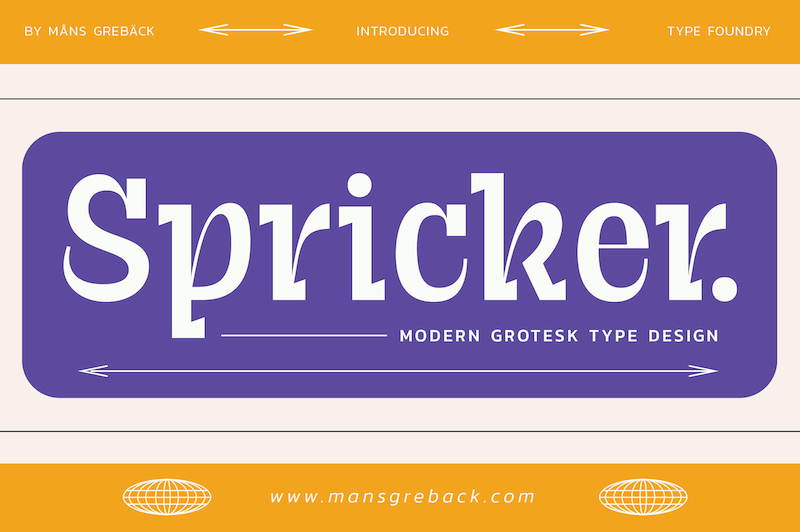
NOTE: This font is for PERSONAL USE ONLY! To purchase a commercial license, visit: http://mn.sg/spricker Spricker is where contemporary design meets typographical precision. With slab serifs anchoring its design, this typeface achieves a striking balance between robust weight and delicate hairline thin strokes. For questions, please visit www.mn.sg/faq Visit my website: http://www.mansgreback.com Like my fonts on Facebook: http://www.facebook.com/mansgreback |